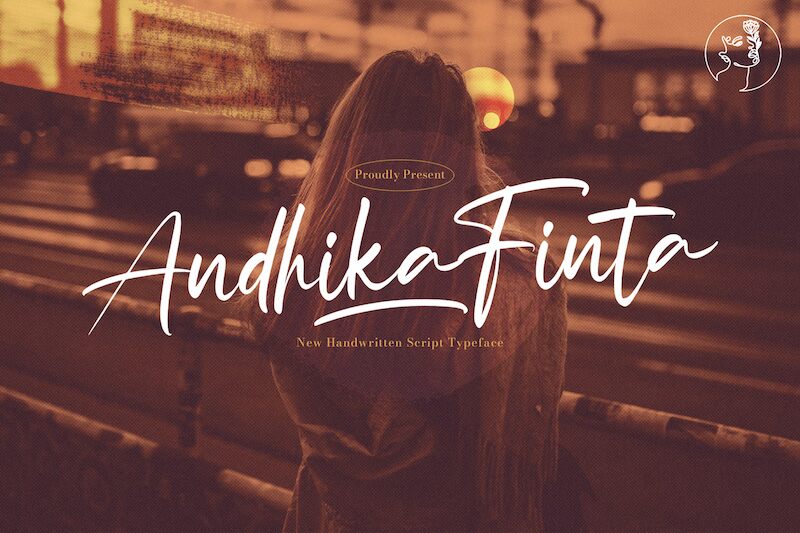
Andhika Finta
Introducing Andhika Finta: a light, handwritten font designed by Virgiawan Listanto. Perfect for crafting unique logos and branding projects or adding a personal touch to your website or social media posts.